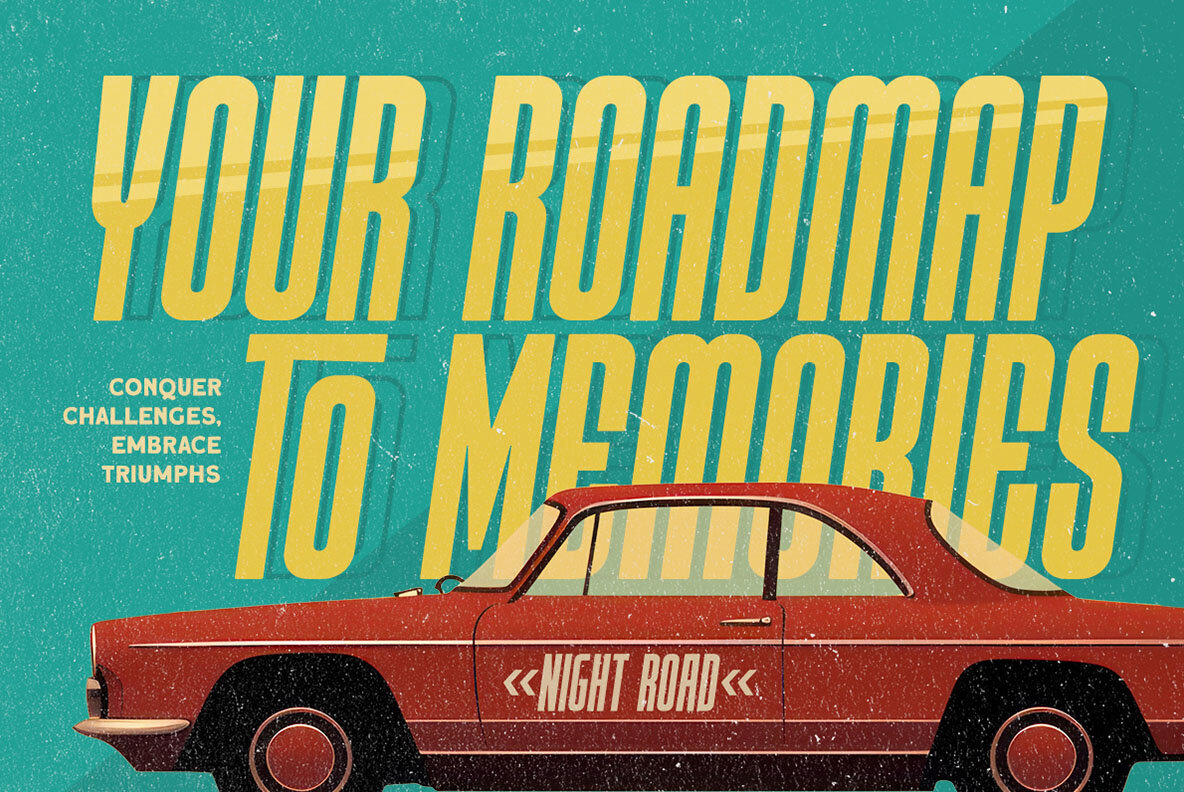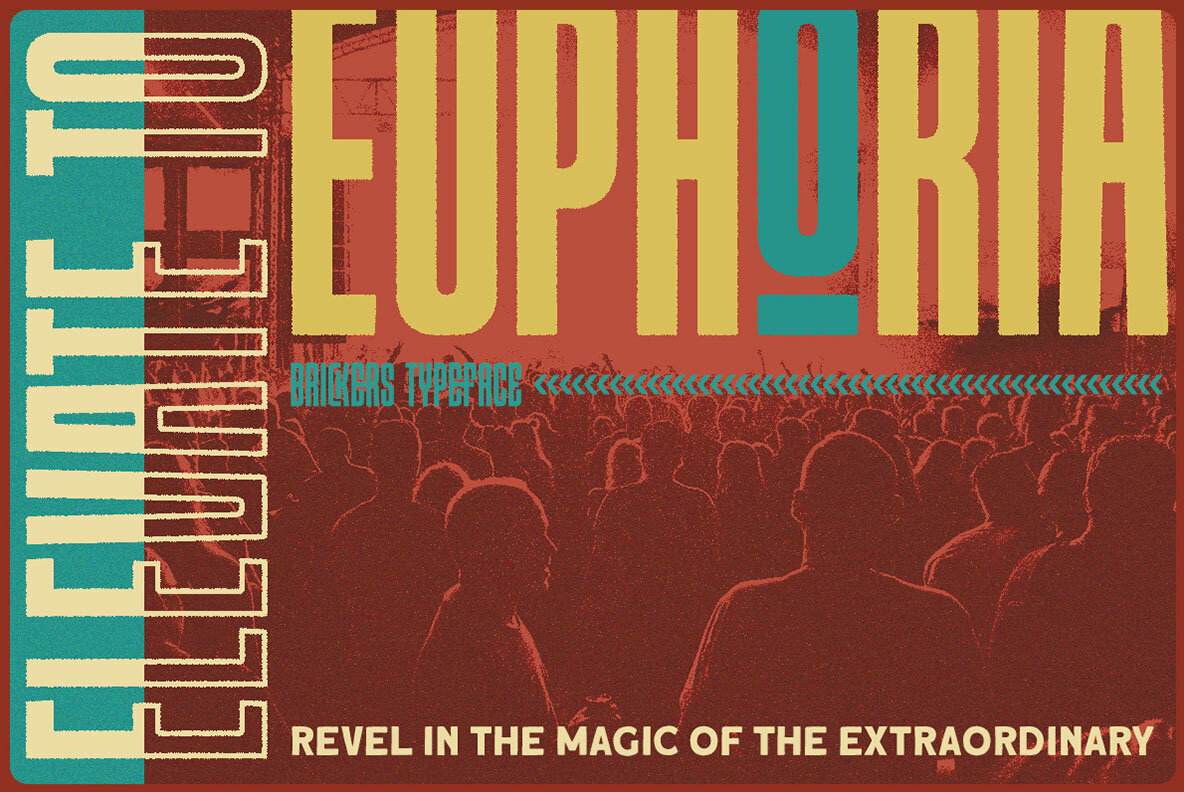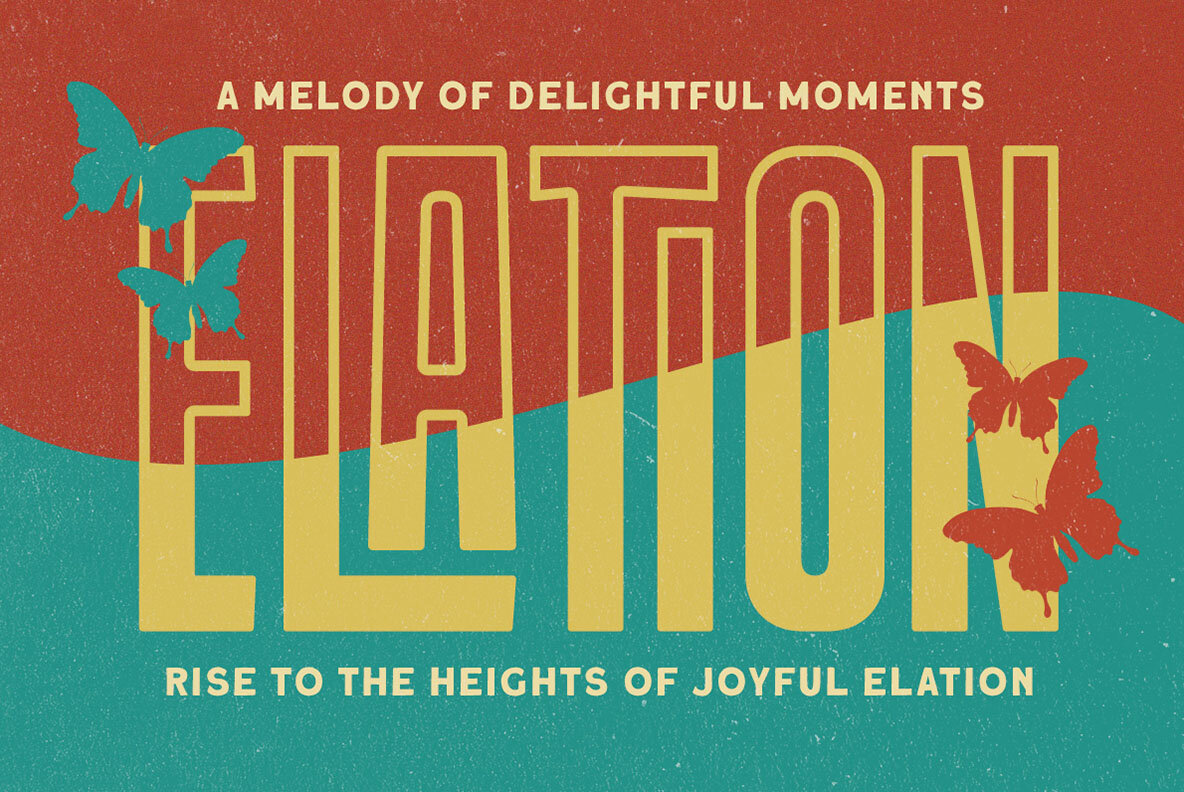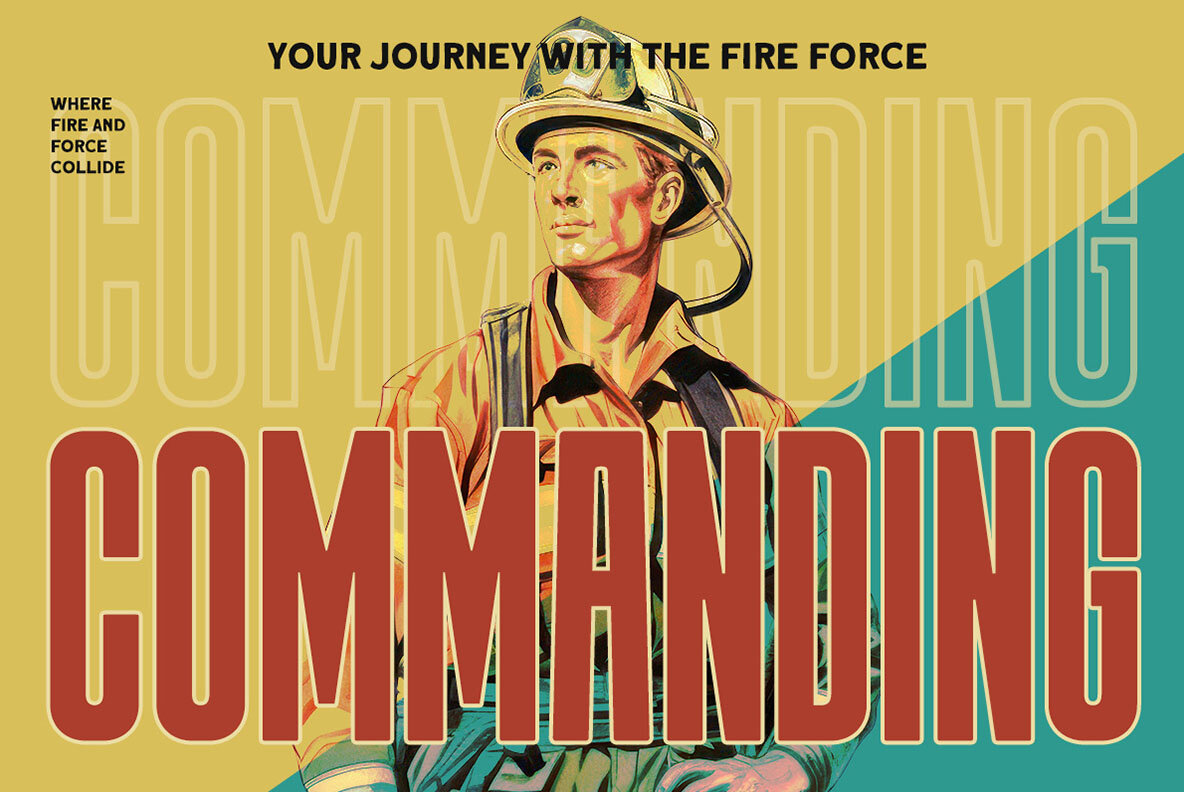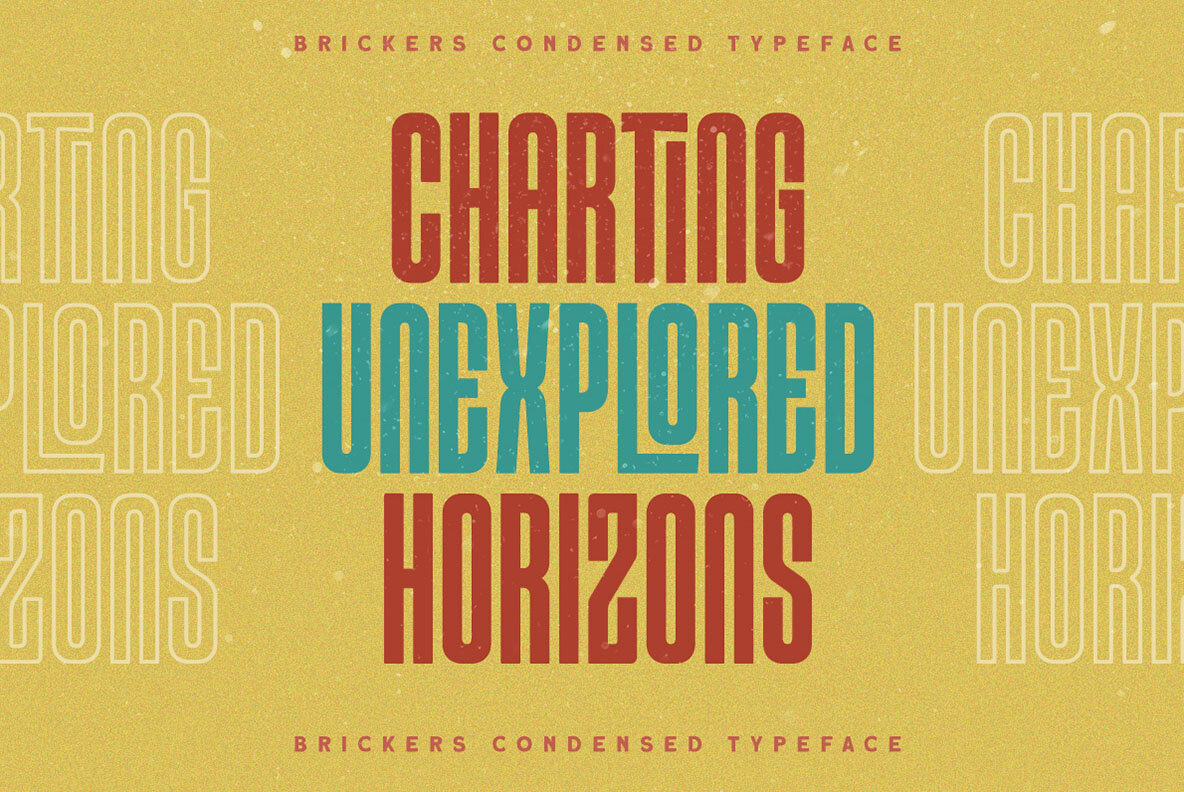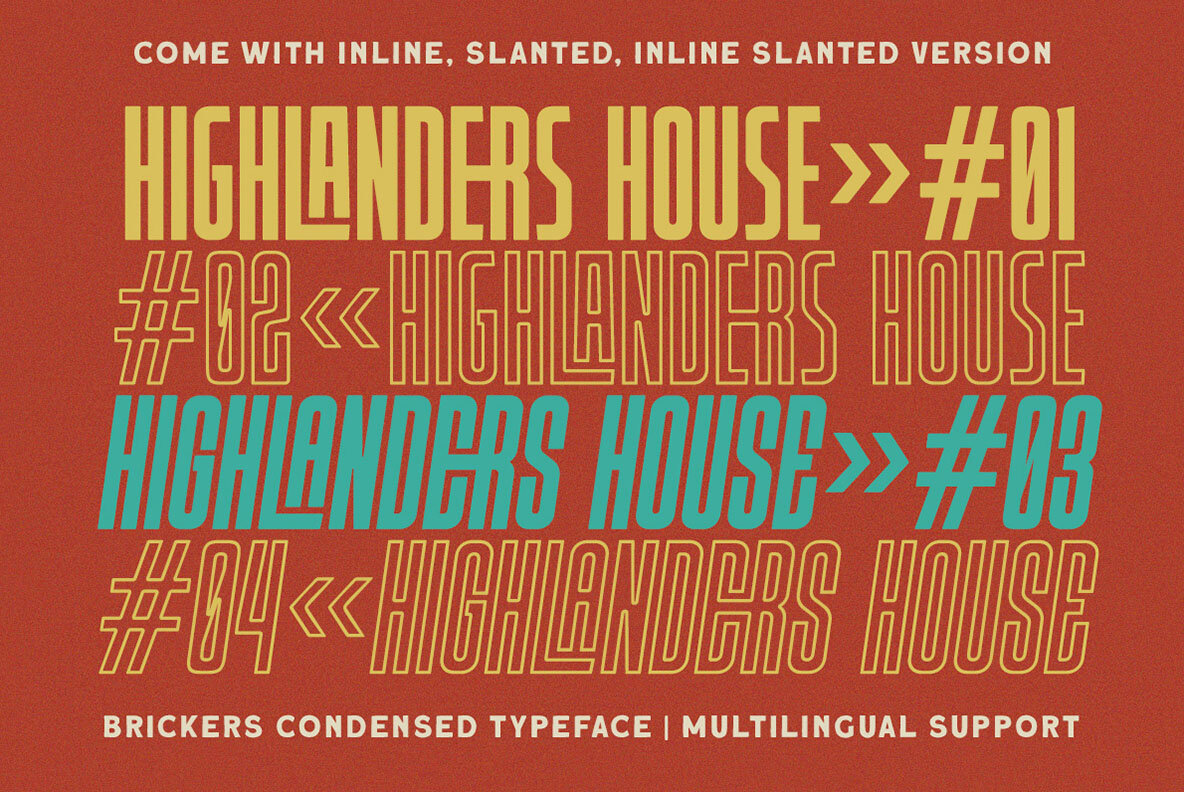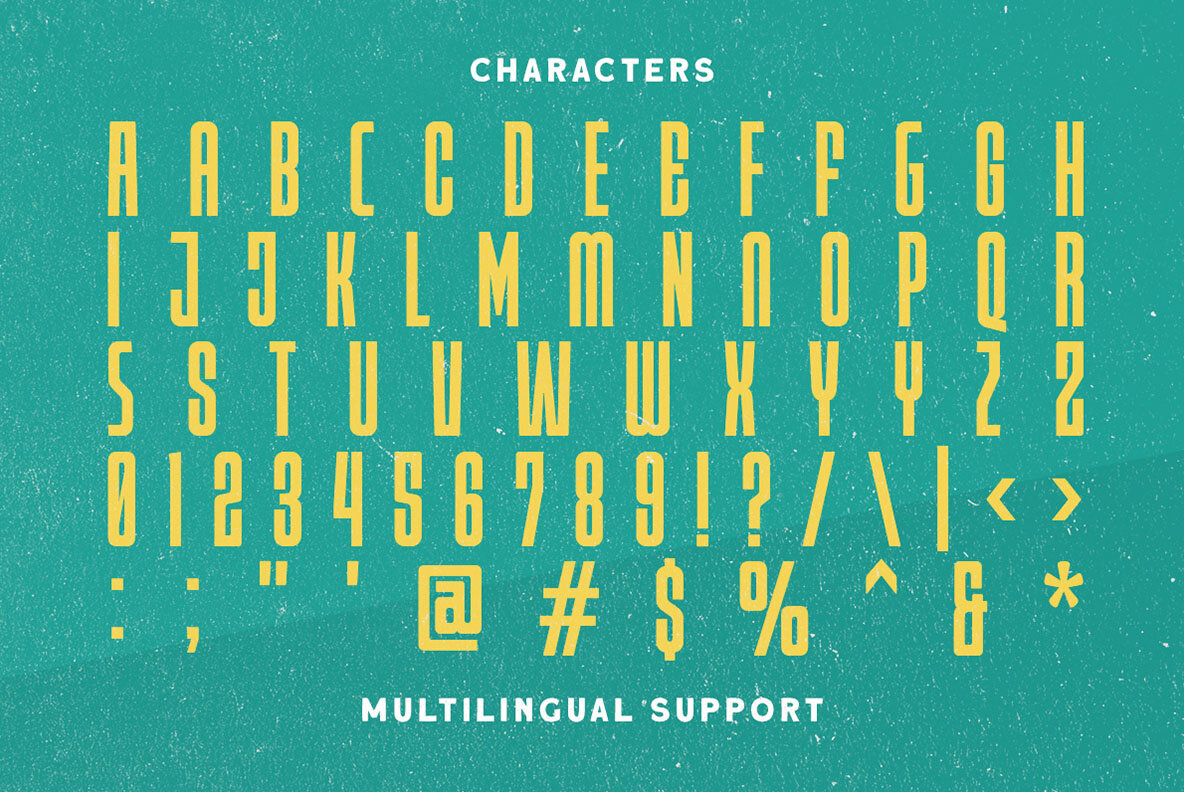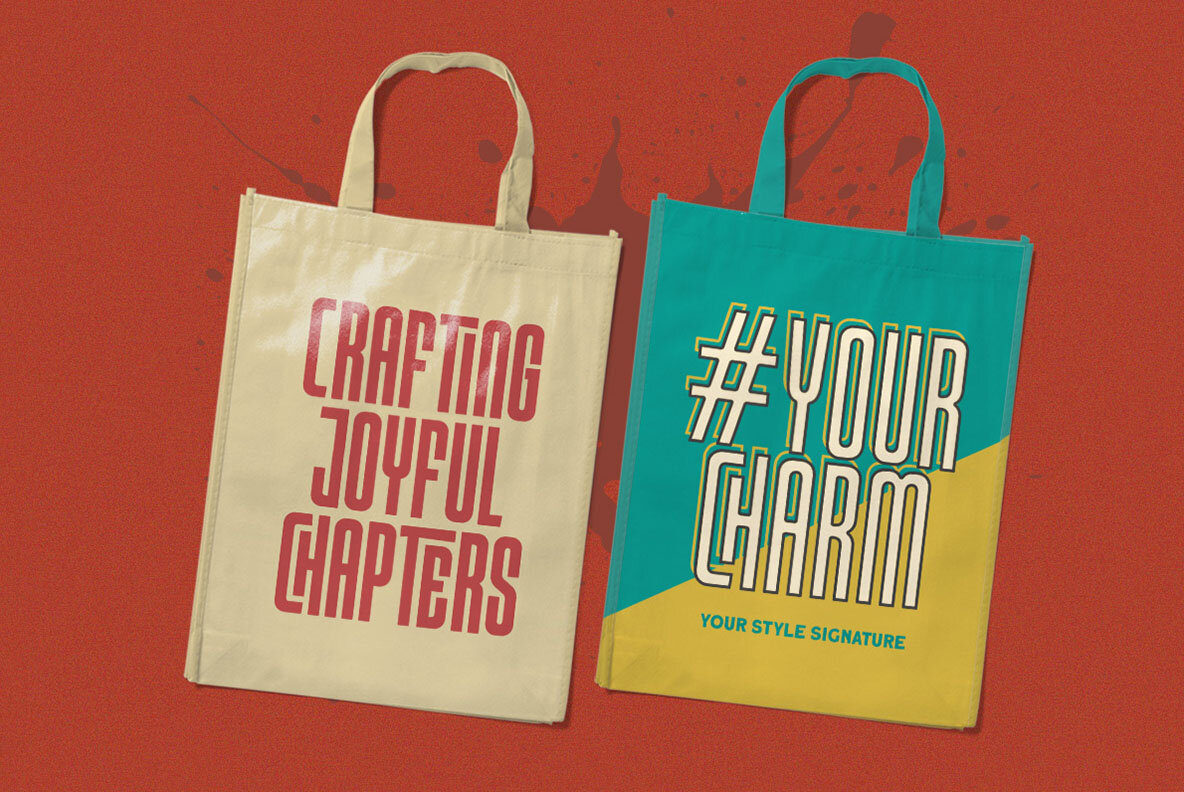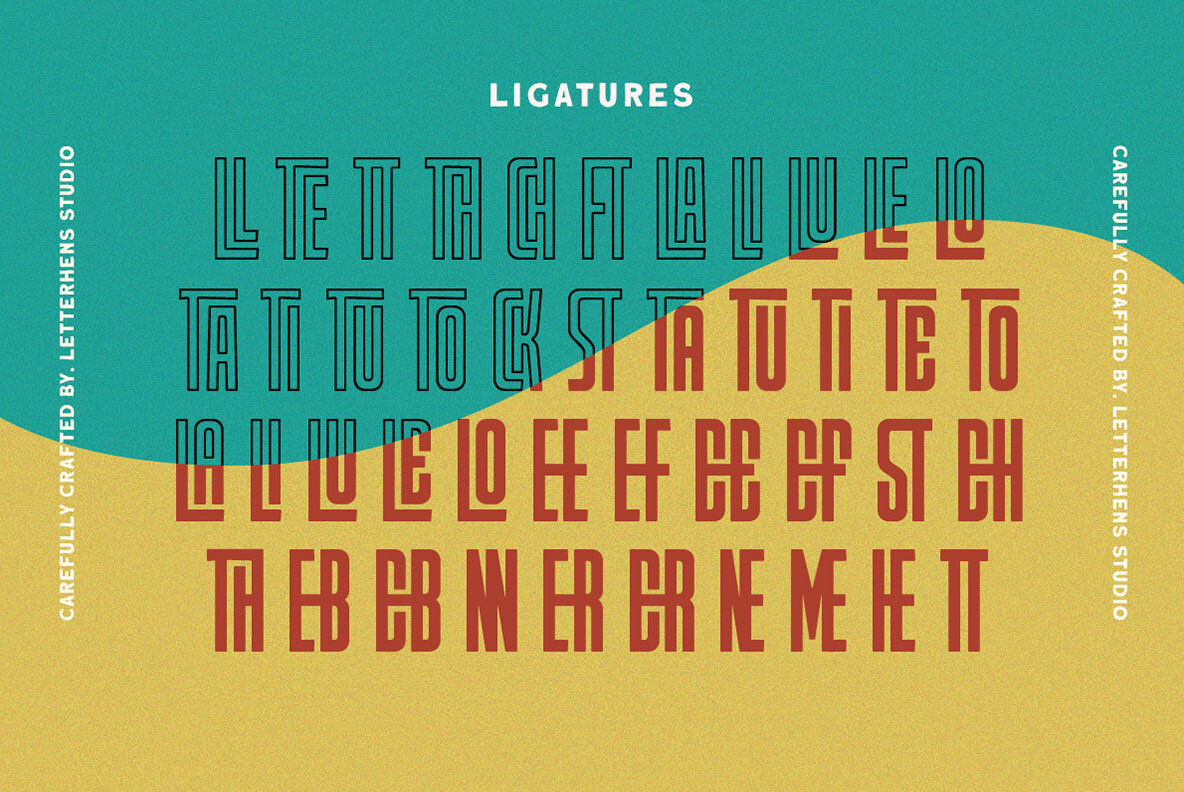
Brickers Font
Brickers Condensed display font by Letterhend Studio offers a clean and crisp aesthetic with a range of styles including regular, slant, inline, and inline slant. This font adds a distinctive touch to any design project, making it ideal for everything from logos to posters that require a fresh and contemporary appeal. We recommend using a program that supports OpenType features and Glyphs panels, such as many Adobe applications and Corel Draw, to fully access and utilize all Glyph variations.Brickers Condensed Display Font: Versatile Styles for Modern Designs